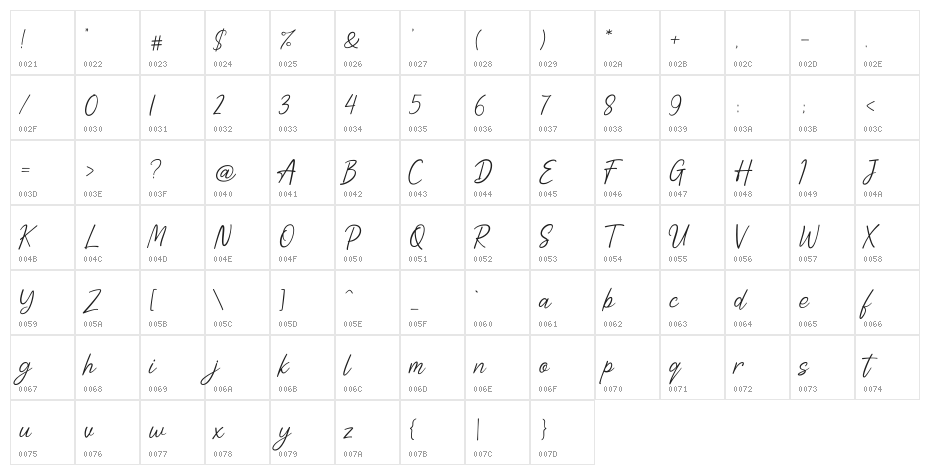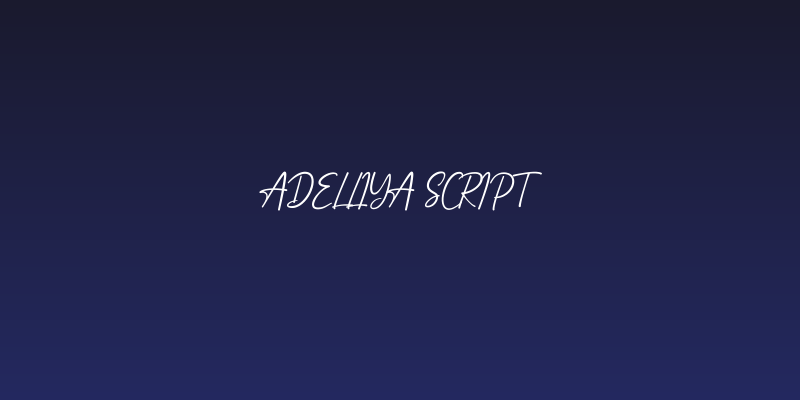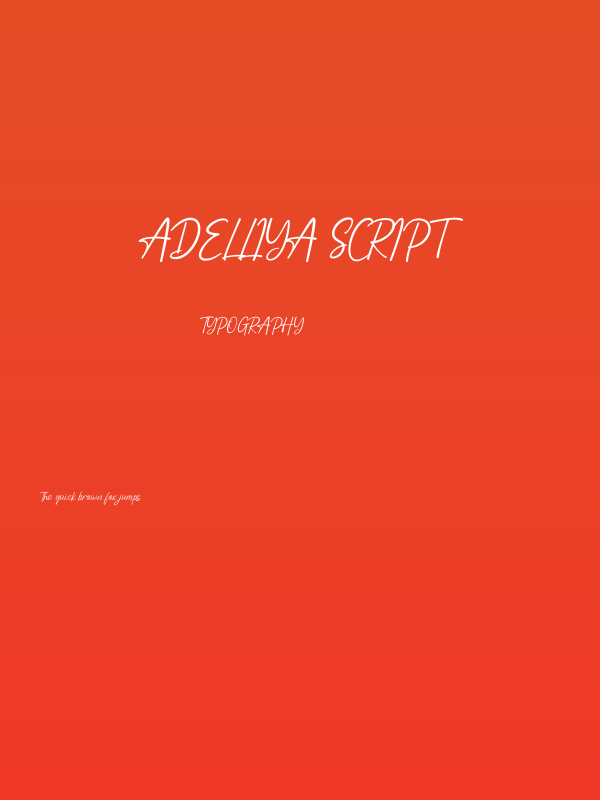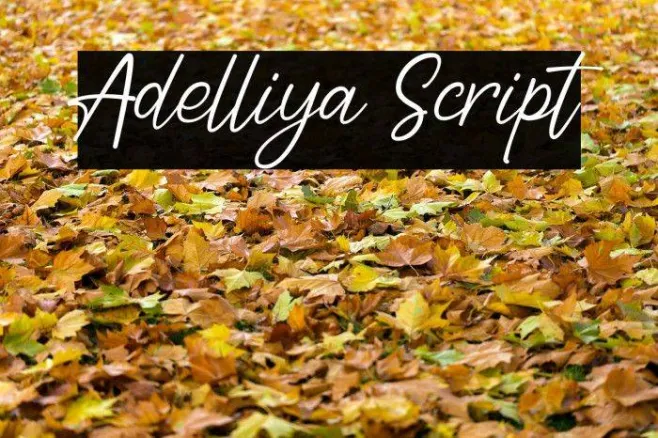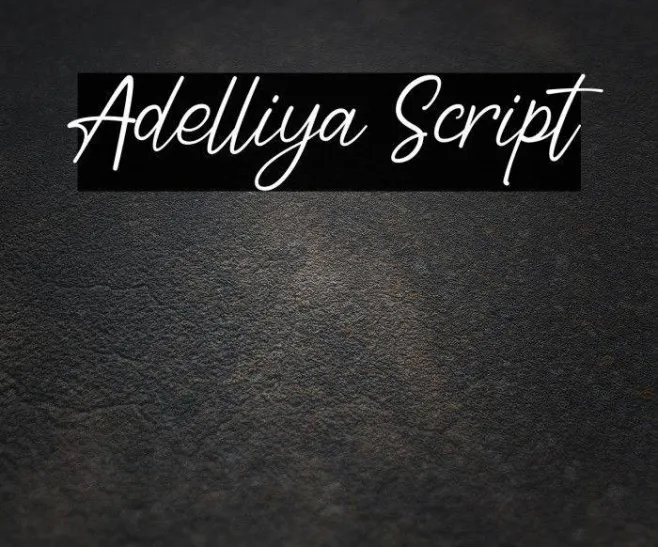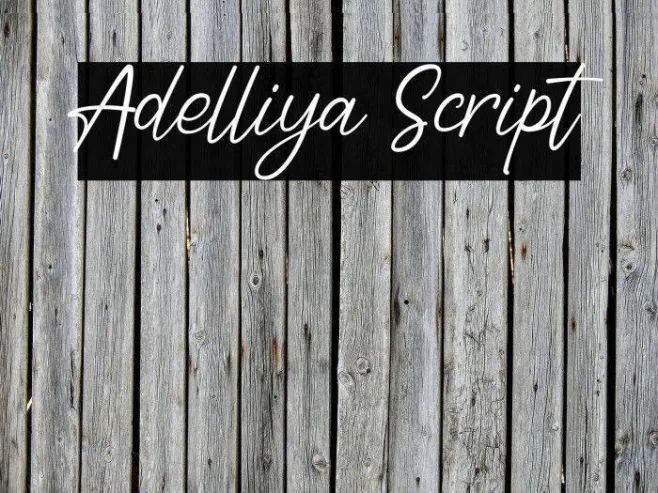
Adelliya Script Font
Adelliya Script Description
This elegant script font features a flowing, handwritten style that exudes sophistication and charm. The uppercase letters are tall and slightly slanted, with graceful curves and loops that give them a dynamic appearance. The lowercase letters maintain a consistent flow, with smooth connections between each character, enhancing the script's fluidity. The numerals are well-balanced, complementing the overall aesthetic with their rounded forms. Special characters are thoughtfully designed to match the font's style, ensuring a cohesive look across all text elements. This font's delicate strokes and moderate contrast make it suitable for a variety of creative applications.
| Use Case | Logos, Invitations, Stationery |
| Proposed Projects | Ideal for wedding invitations, elegant branding, greeting cards, and personal stationery. |